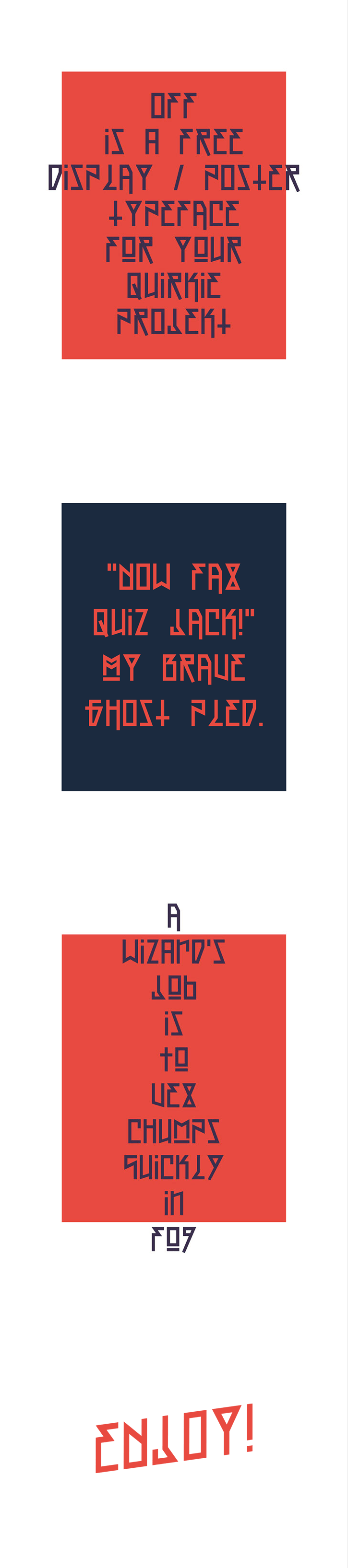
Today’s daily freebie is a display font face titled OFF! by Rendra Diardjo of Indonesia. I’m a big fan of typography and can tell that he’s put in a lot of mouse time creating it.
This strong and bold character font type is perfect for posters, web, textual headlines and much more, and is versatile for projects related to fashion, indie stuff, extreme sports, sci-fi movies for an edgy personality. The font itself was inspired by the Santa Cruz brand logo.